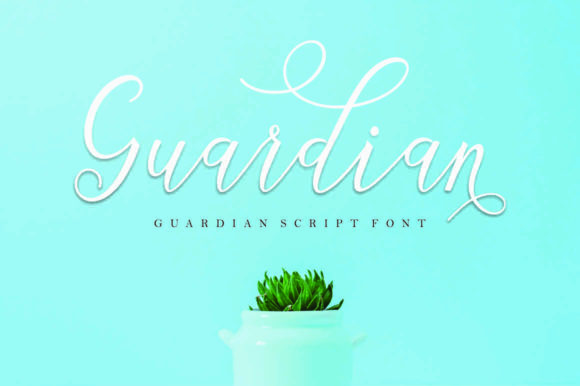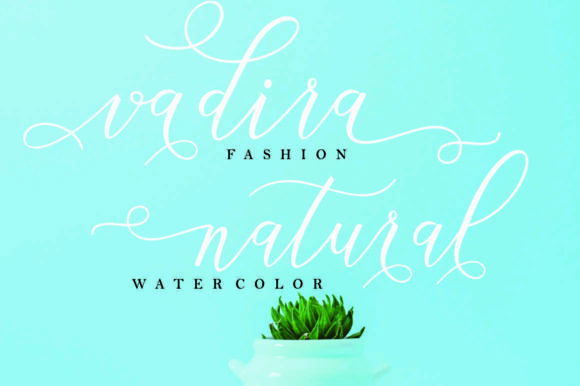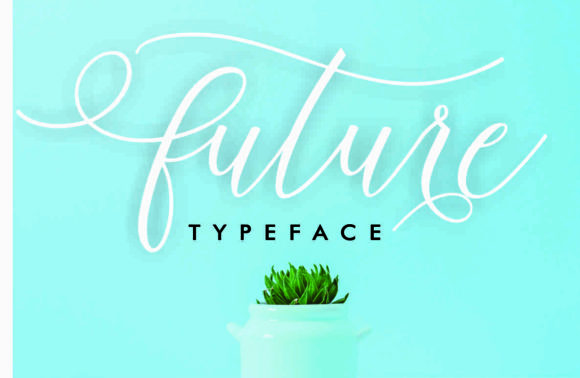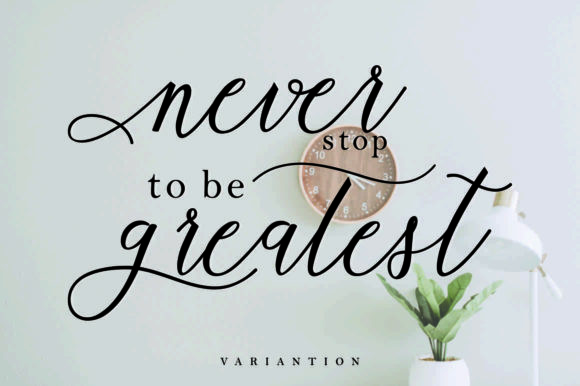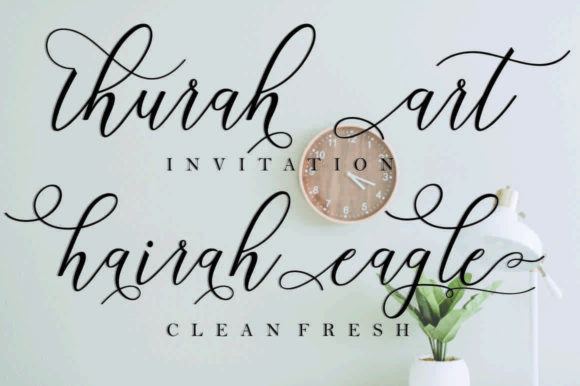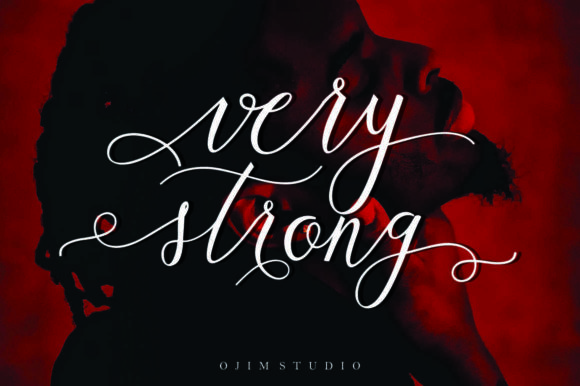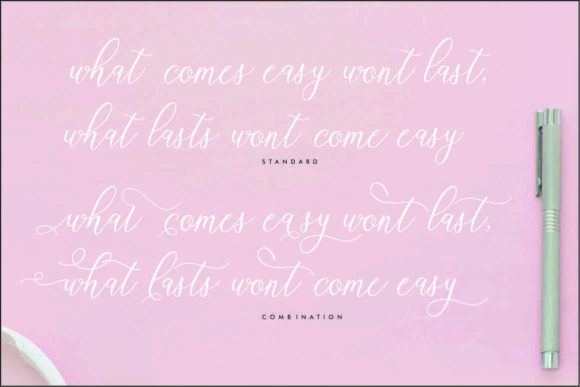
Guardian Script Font
About Guardian Script Font
The Guardian is a modern script font with a luxurious feel.
This handwritten script is suitable for headlines, logotypes, apparel, invitations, branding, packaging, advertising, and much more!